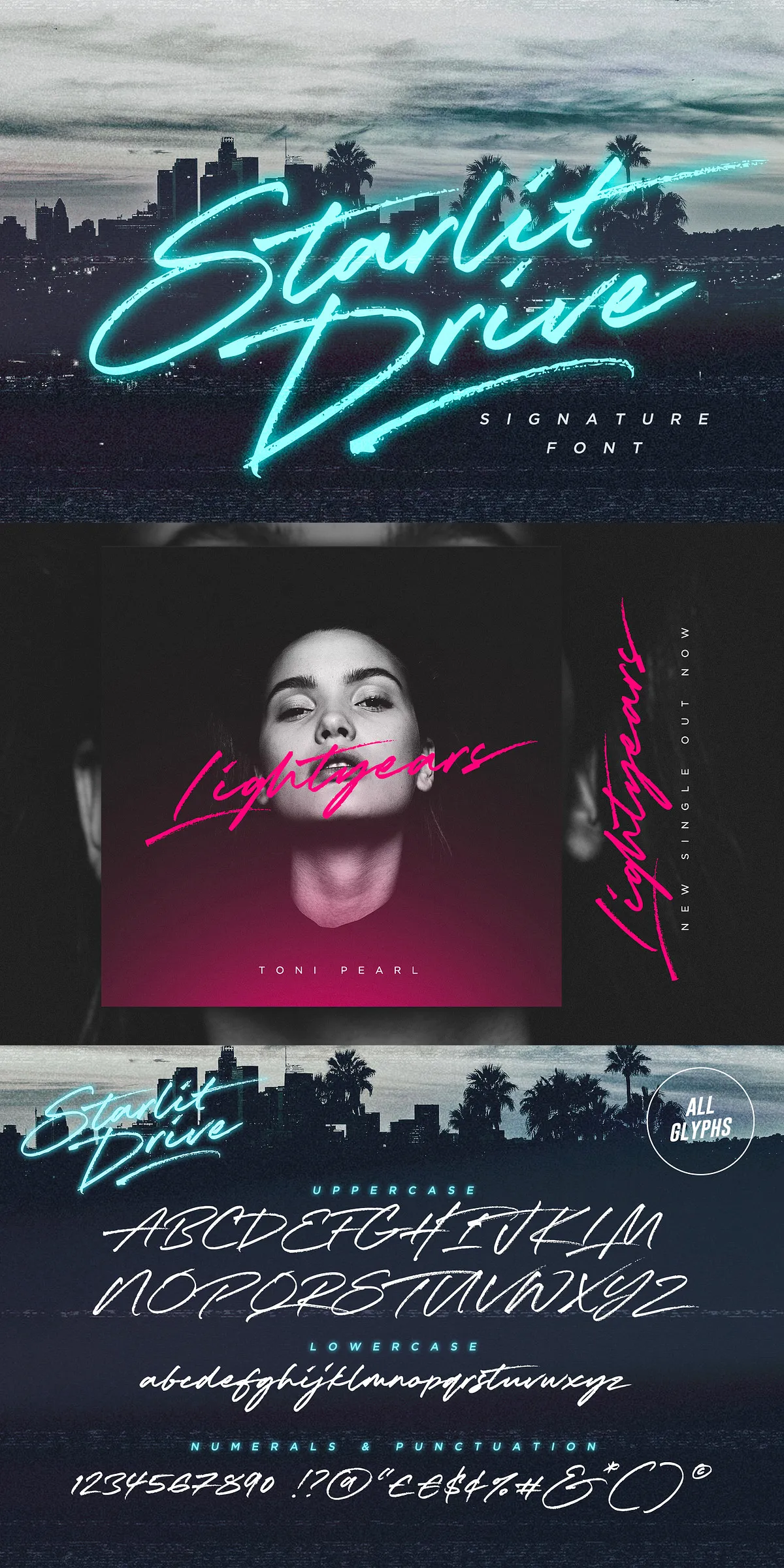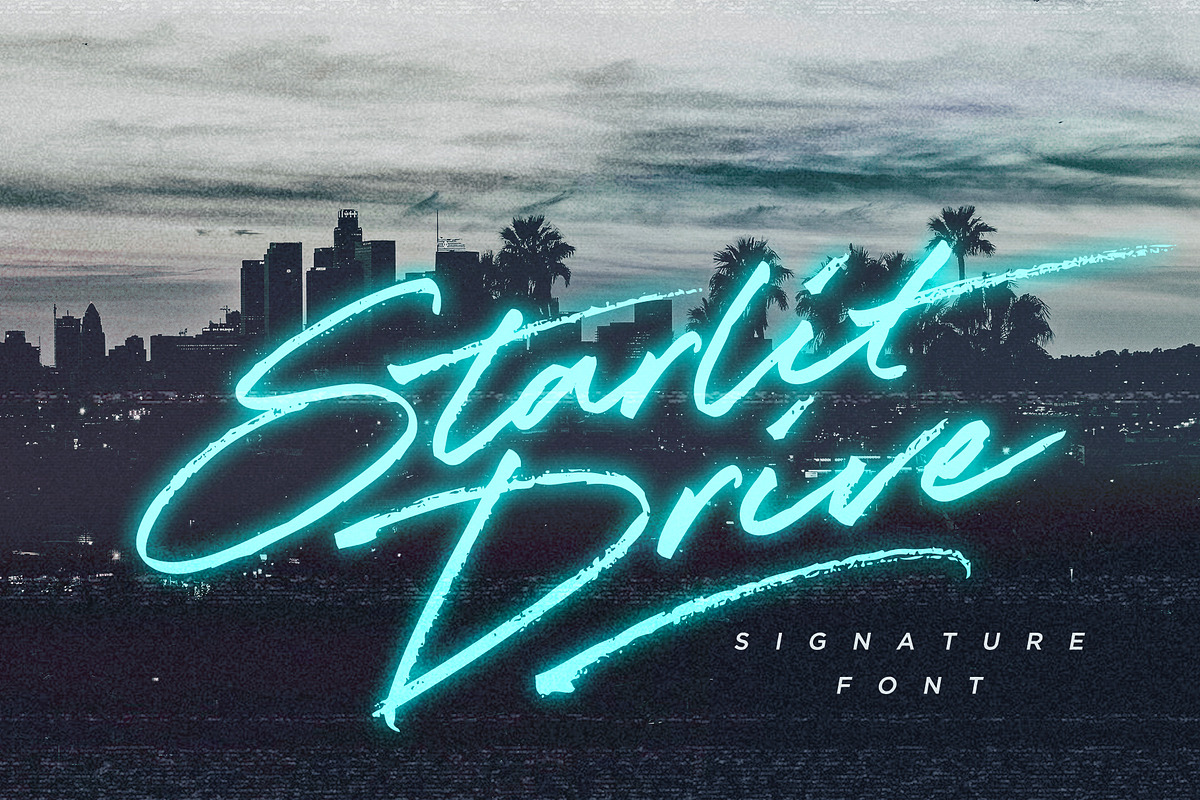
Slip on your aviators, rev up your imagination, and hit the open road with Starlit Drive – a high-octane, retro-inspired handwritten script font that blends vintage flair with modern design power. Crafted for creators who crave confidence, character, and an unmistakable sense of motion, this typeface delivers bold, swift strokes and genuine dry-texture depth that makes every letter feel hand-sketched and alive. Whether you’re building a brand identity, designing a concert poster, or launching a limited-edition product line, Starlit Drive doesn’t just communicate text—it commands attention.
Two Fonts, Infinite Possibilities: The Dynamic Duo Behind the Vibe
Starlit Drive comes in two powerful components, each designed to elevate your typographic storytelling:
- Starlit Drive (Regular) – A fluid, fast-moving script with seamless lowercase and uppercase characters, numerals, and a wide array of punctuation. This foundational style brings rhythm and flow to every line, making it ideal for headlines, taglines, and expressive body text.
- Starlit Drive Swash – The game-changer. Type any a–z character in this font and instantly unlock one of 20 unique swashes designed to add flair, drama, and visual momentum. Use them to underline key words, emphasize emotional phrases, or create dynamic lettering patterns that feel naturally hand-drawn.
Together, they form a creative powerhouse. Layer the swash font over the regular style for dramatic effect, or use them independently to build contrast and interest in your layouts. This isn’t just a font—it’s a design toolkit.
Advanced OpenType Features for Professional-Grade Polish
For designers who demand precision and flexibility, Starlit Drive unlocks the full potential of OpenType technology:
- Ligatures (30 in total) – Access authentic ligatures for 30 lowercase character pairings. Activate them via your software’s OpenType menu under “Discretionary Ligatures” or through the Glyphs panel. These subtle connections make text flow more naturally and lend an organic, hand-lettered authenticity.
- End Characters (Stylistic Alternates) – Every lowercase letter has a special end-swash variant, perfect for finishing words with flair. Turn on “Stylistic Alternates” in your design software to automatically apply these finishing touches at the end of words—elegant, expressive, and effortlessly professional.
Designed for Real-World Design Projects – Bold, Stylish, Ready to Use
Starlit Drive thrives in environments where attitude and authenticity matter. Use it to:
- Build striking logos and brand identities – Stand out with a name that feels personal, energetic, and full of story.
- Create unforgettable packaging and merch – Make products pop on shelves with bold, textured lettering that captures the eye and the heart.
- Design eye-catching posters, banners, and event flyers – The fast strokes and retro edge deliver instant visual impact for concerts, parties, and campaigns.
- Enhance digital content and social media – Use in Instagram posts, YouTube thumbnails, and email headers to add a bold, handwritten personality.
- Bring life to book covers and editorial designs – Perfect for genres like travel, memoirs, or lifestyle content that benefits from a personal, handcrafted touch.
Design with Confidence. Write with Personality.
Starlit Drive isn’t just a font—it’s a statement. It’s for creators who believe that design should feel alive, spontaneous, and deeply human. The dry textures, bold strokes, and dynamic swashes are more than visual choices—they’re emotional cues that connect with your audience on a deeper level.